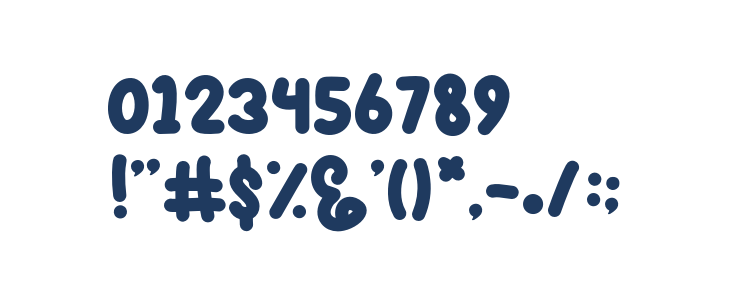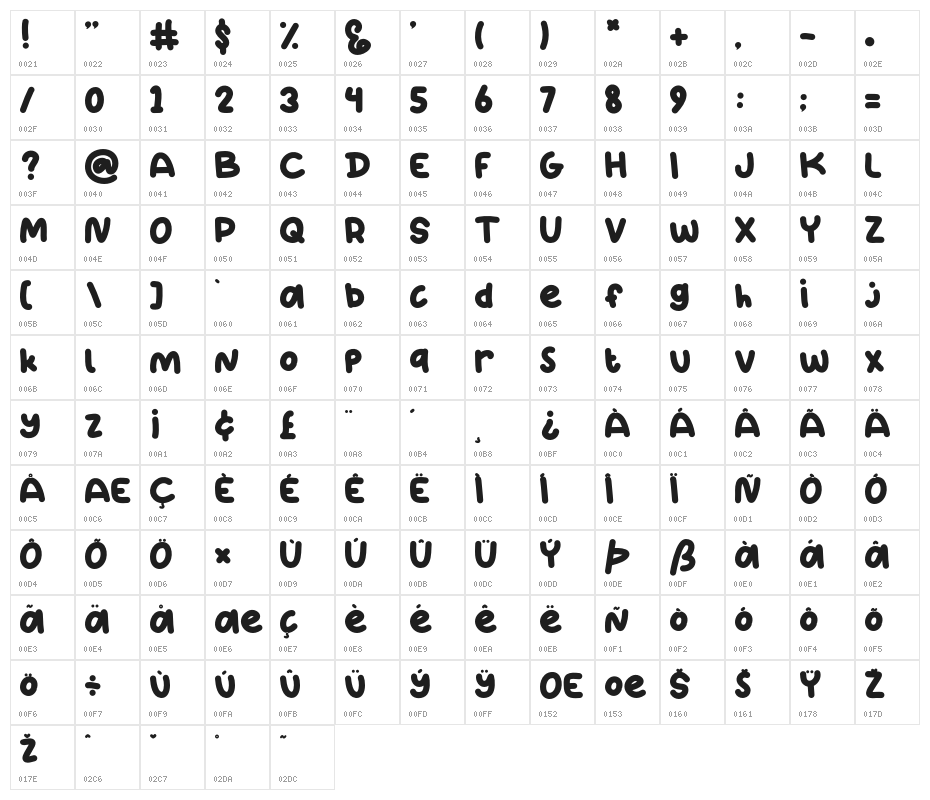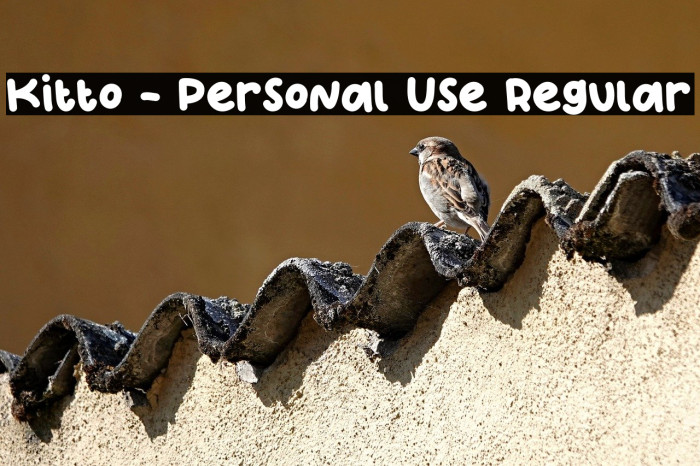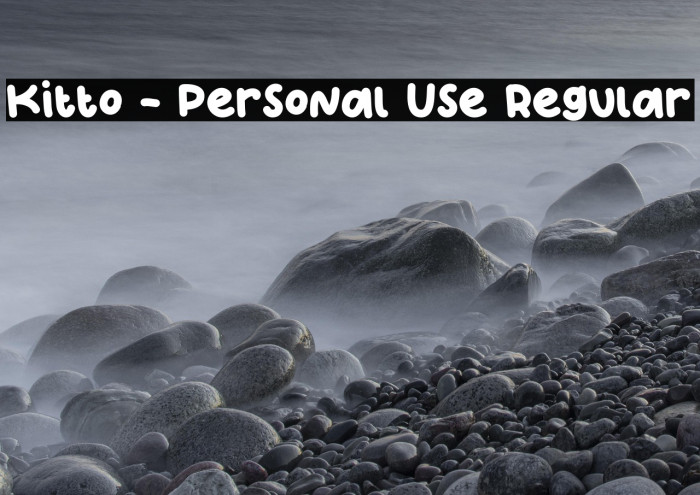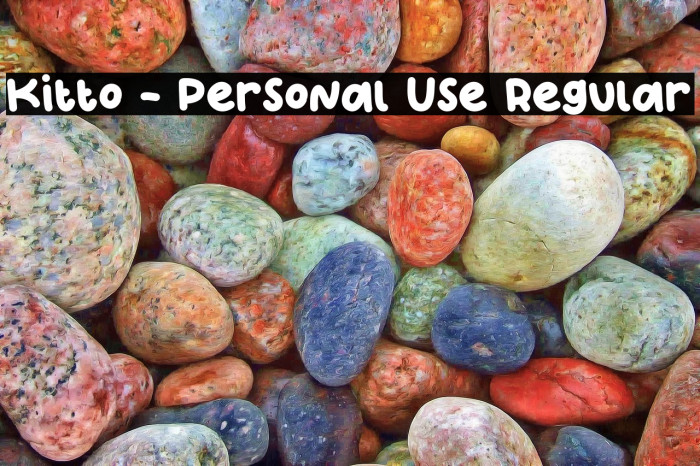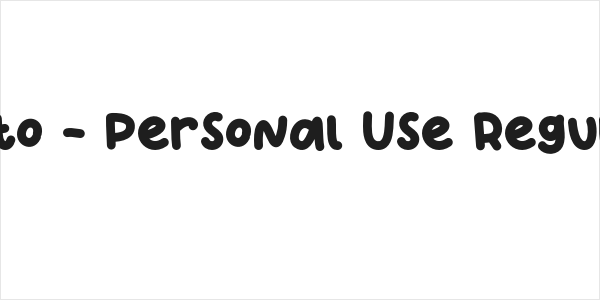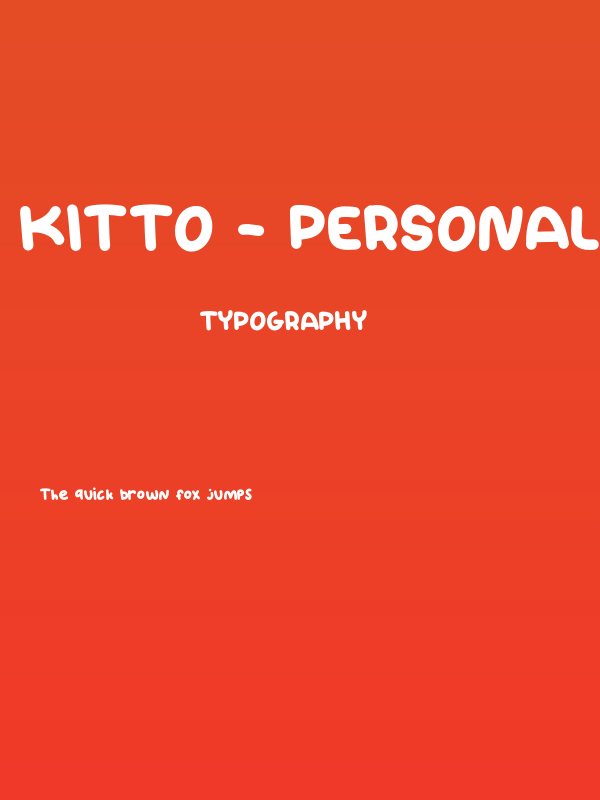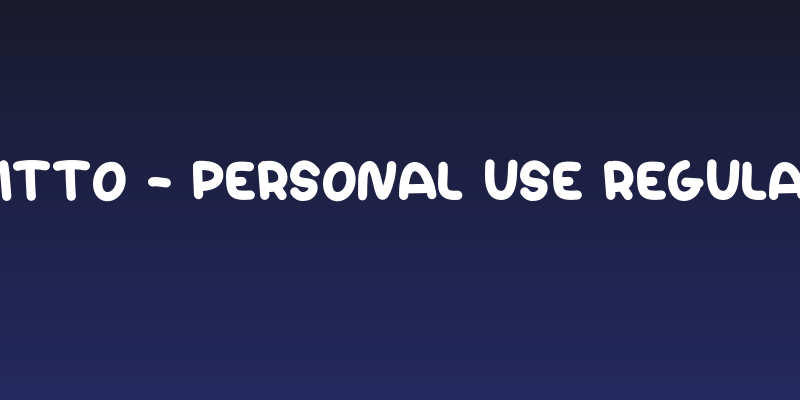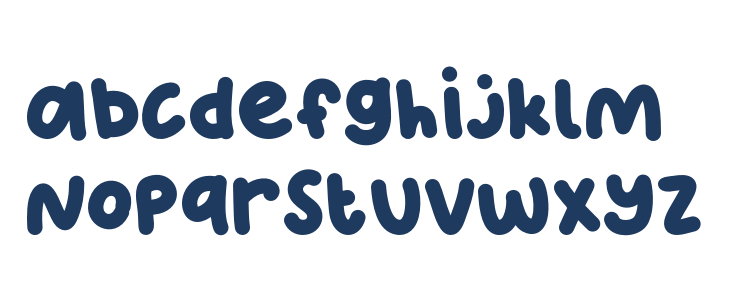
Kitto - Personal Use Regular Font
Kitto - Personal Use Regular Description
This playful and bold font features rounded, bubbly characters that exude a sense of fun and approachability. The letters are uniformly thick, giving them a strong presence on the page. The font is highly legible, with clear distinctions between each character, making it suitable for various creative applications. The numbers and special characters maintain the same playful style, ensuring consistency throughout any design. Its informal and friendly appearance makes it ideal for projects that aim to convey warmth and creativity.
| Proposed Projects | Perfect for children's books, playful branding, party invitations, and casual posters. |